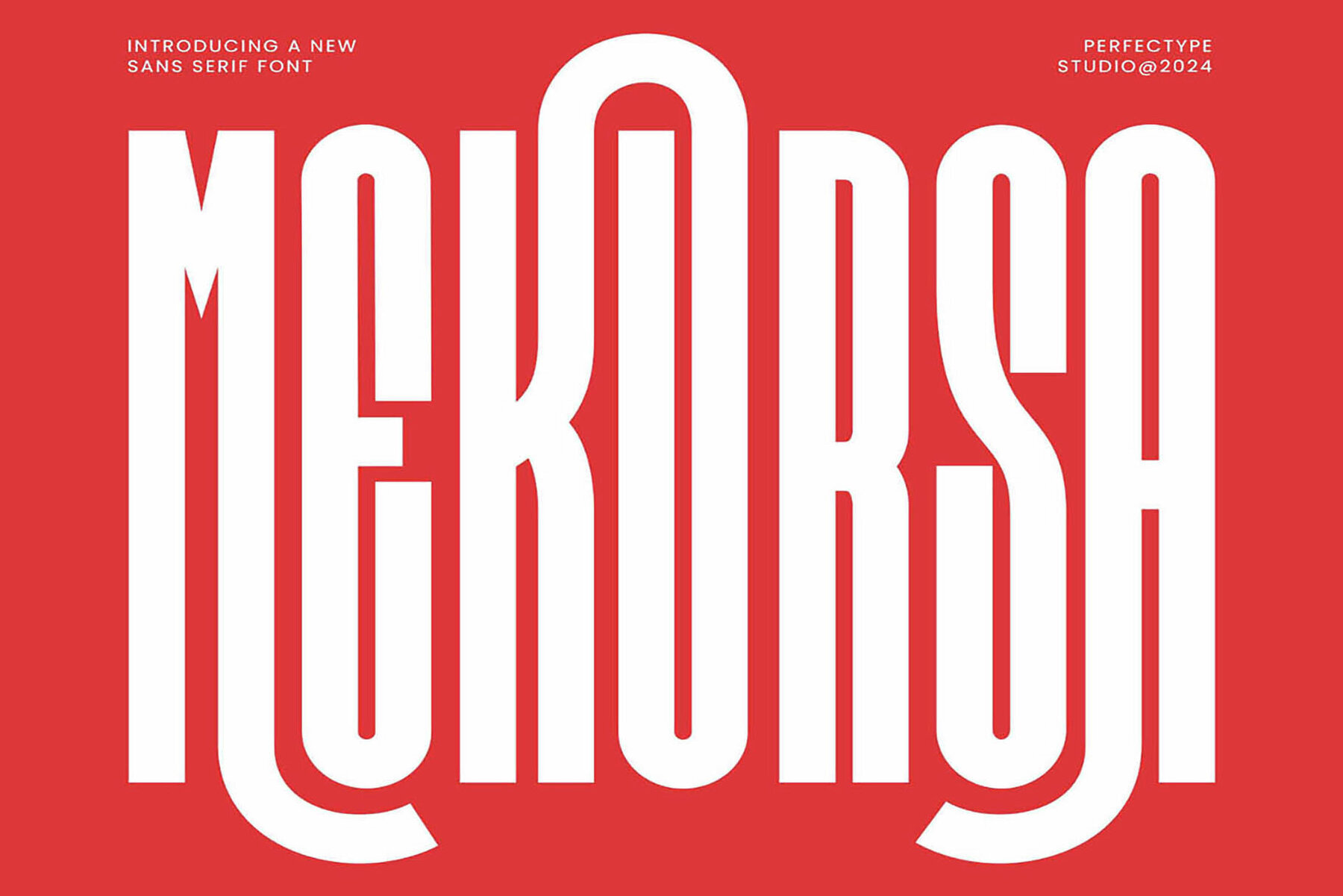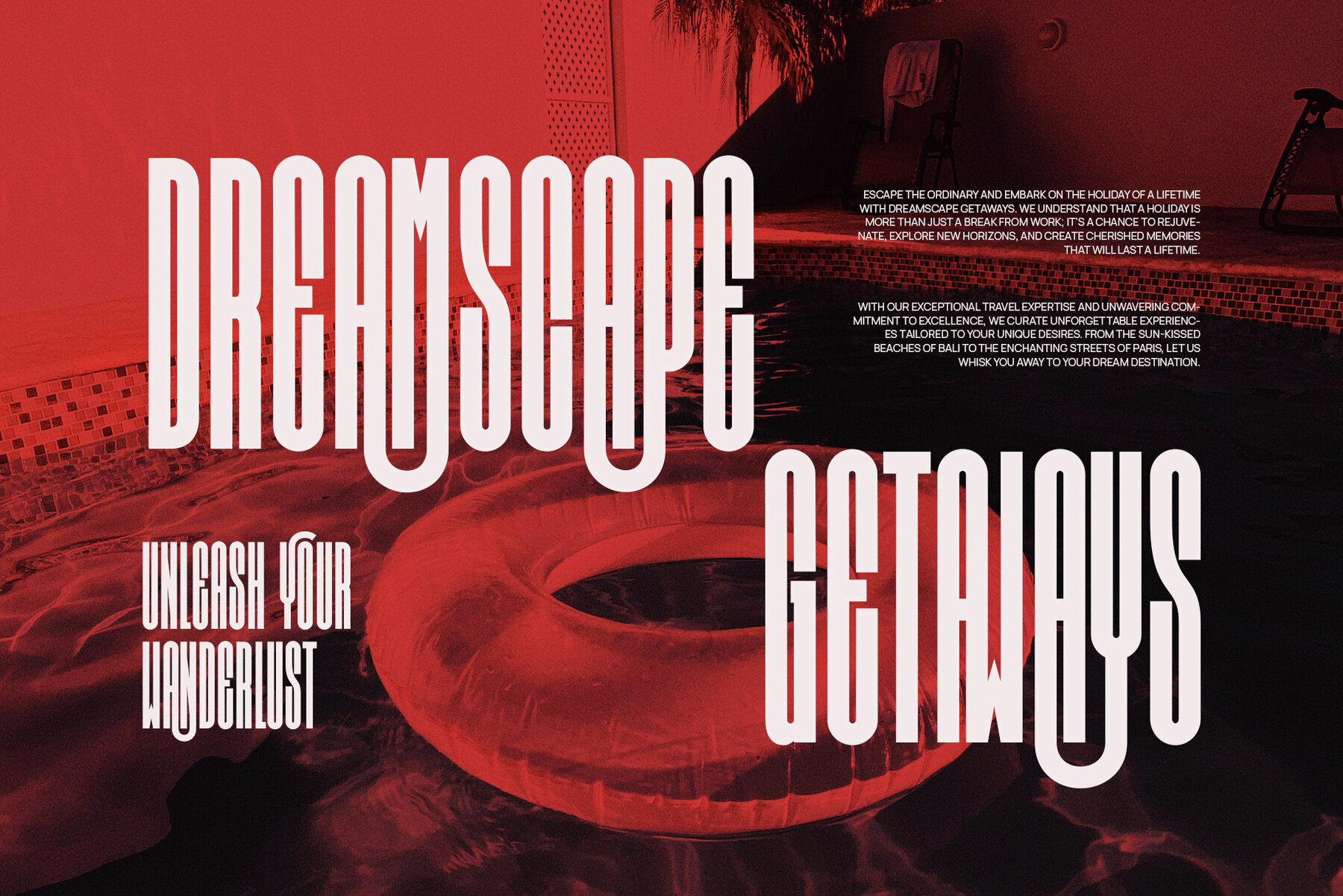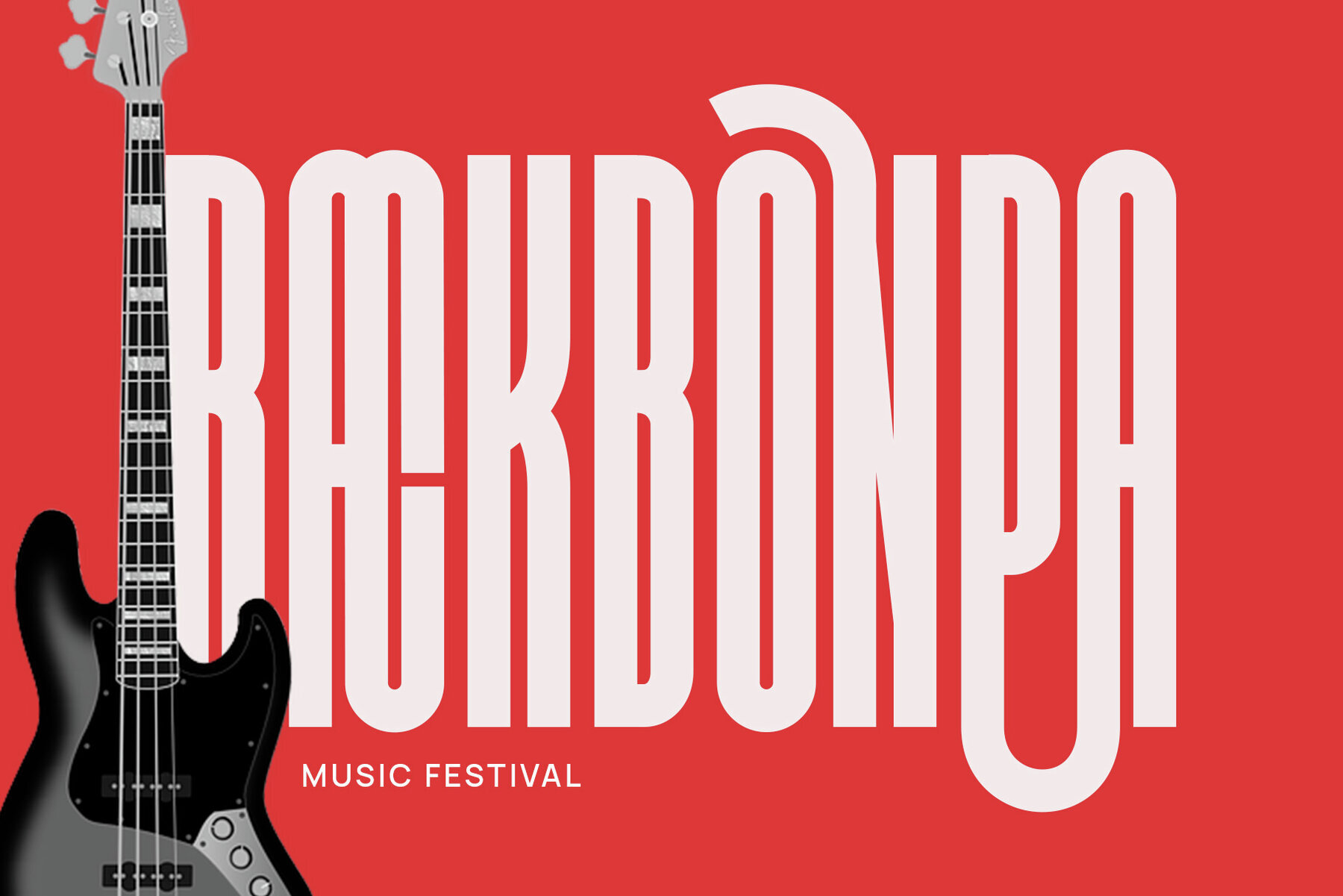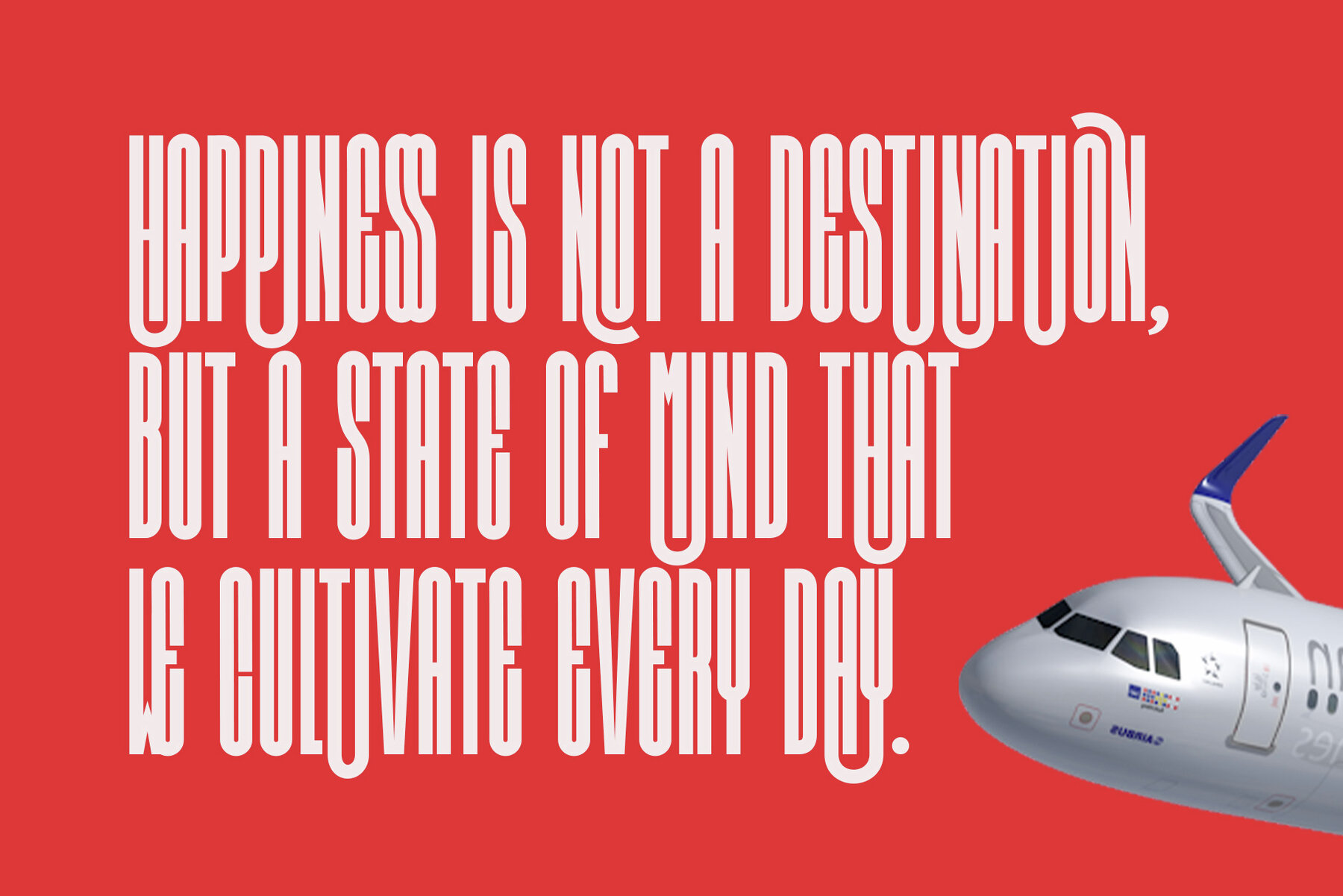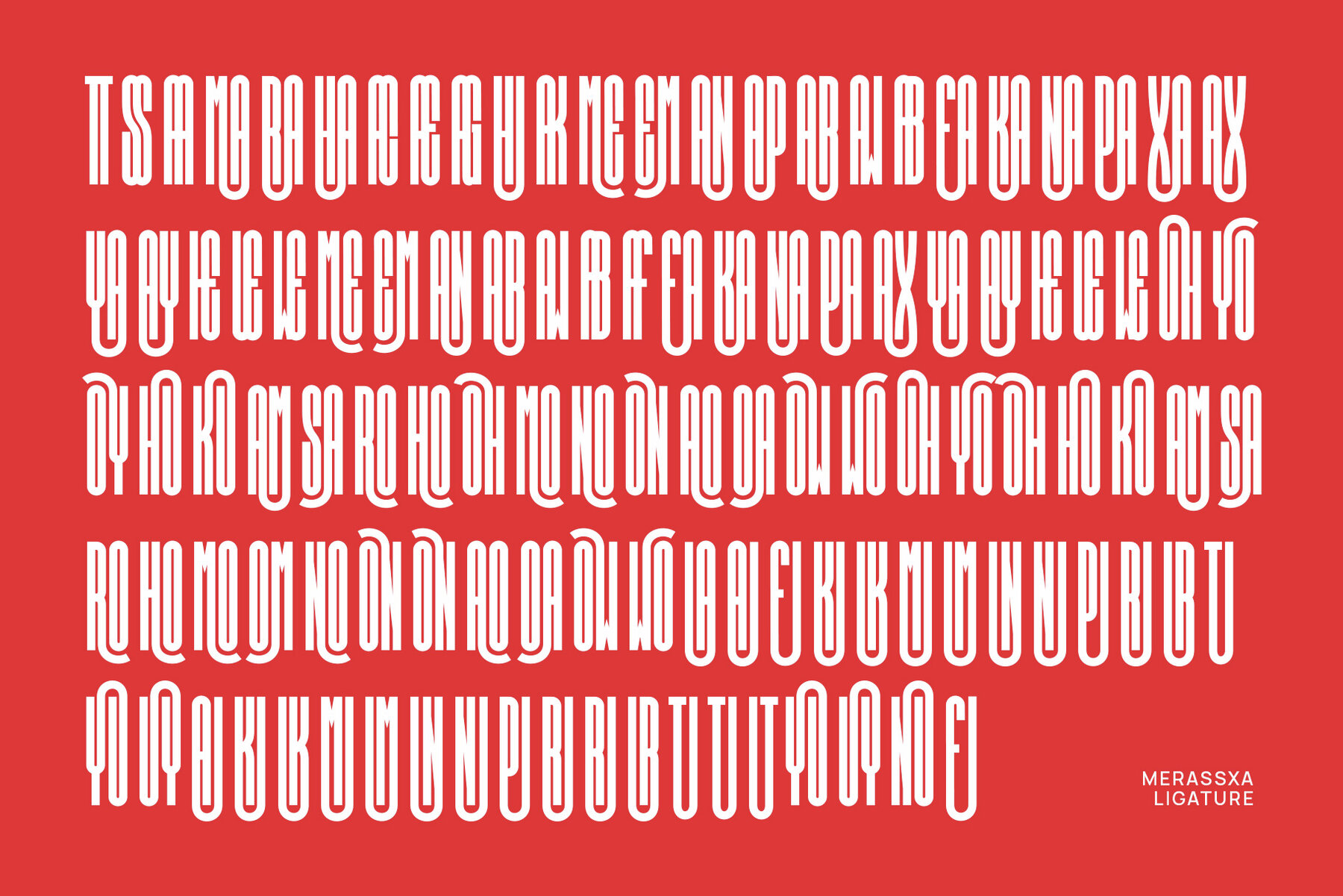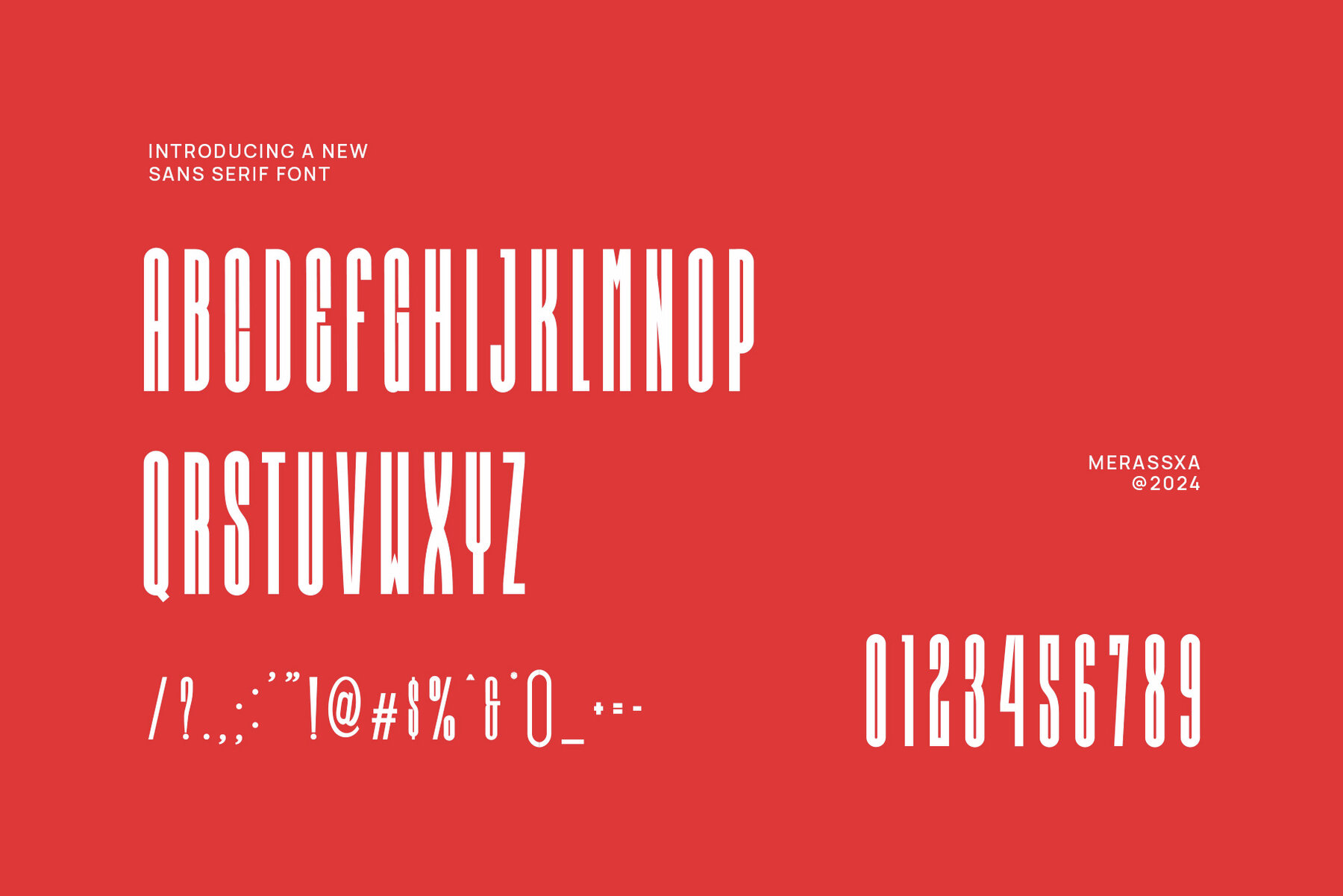
Introducing Mekursa Ligature Sans Serif Font, a contemporary and highly versatile typeface designed to bring clarity and precision to any design. Featuring sleek, geometric shapes and sophisticated ligature features, Mekursa is the perfect font for projects that demand both modern appeal and professional elegance. Its clean, sharp lines create a polished and consistent look, making it ideal for a wide range of applications from corporate branding to creative ventures. Mekursa is packed with beautifully crafted ligatures that ensure smooth transitions between characters, providing an elegant flow to your typography. Whether you’re designing a bold logo, a stylish website, or a cutting-edge corporate identity, Mekursa's unique ligatures enhance the readability and flow of your message, while adding an extra touch of sophistication. Its modern and corporate aesthetic makes it perfect for high-end branding, advertisements, film credits, and product packaging. This font is incredibly versatile and shines across both digital and print media. Its minimalist style ensures it stands out in posters, magazine layouts, and promotional materials, while its clarity and legibility make it ideal for websites, corporate reports, and presentations. Mekursa is equally suited for the creative industries as it is for professional corporate environments. Whether you’re developing a tech brand, designing a fashion ad, or creating dynamic layouts for a magazine, Mekursa Ligature Sans Serif Font provides the perfect balance of elegance, modernity, and readability. Bring your design projects to life with this sleek, adaptable, and powerful typeface.